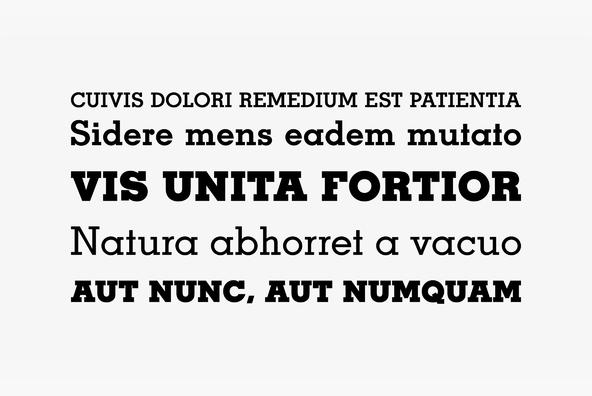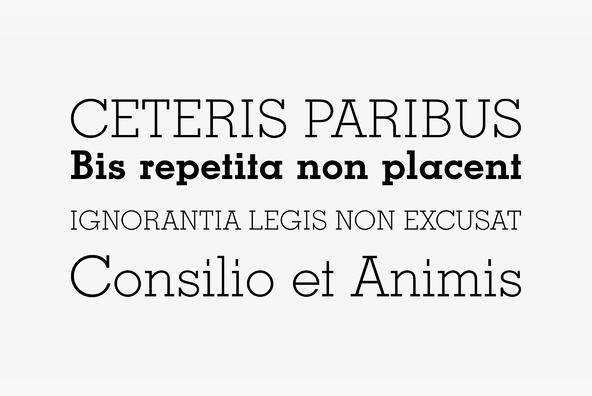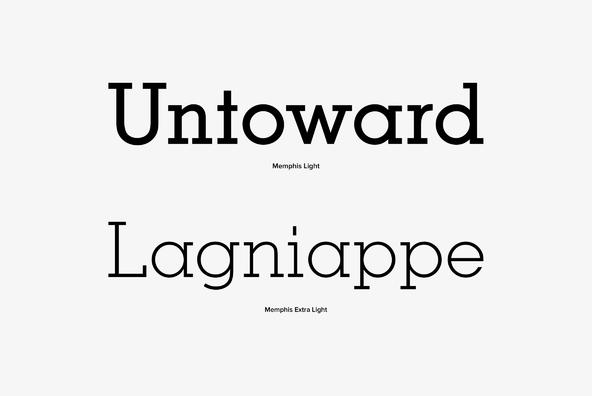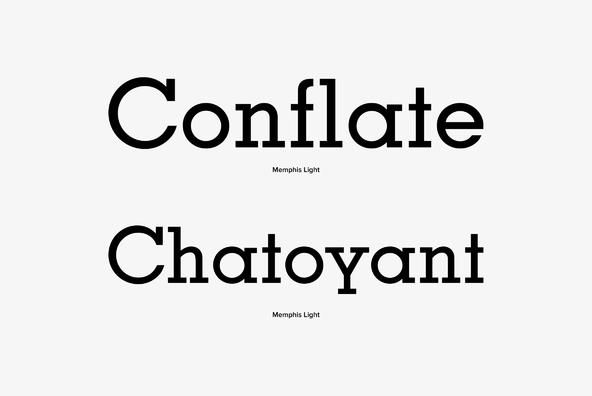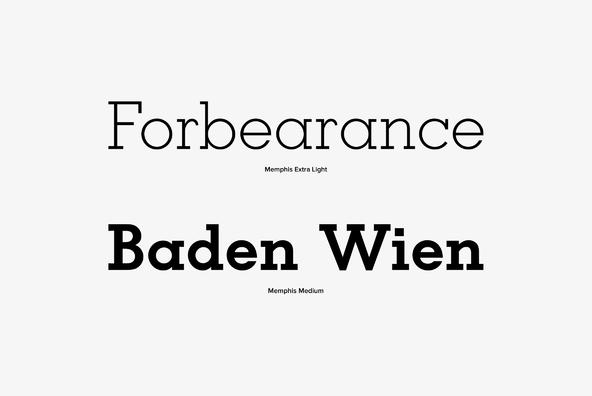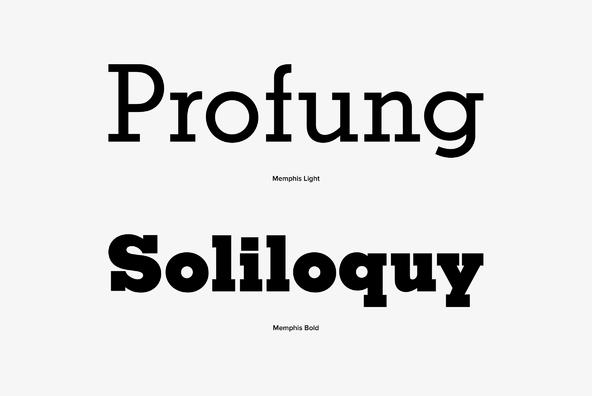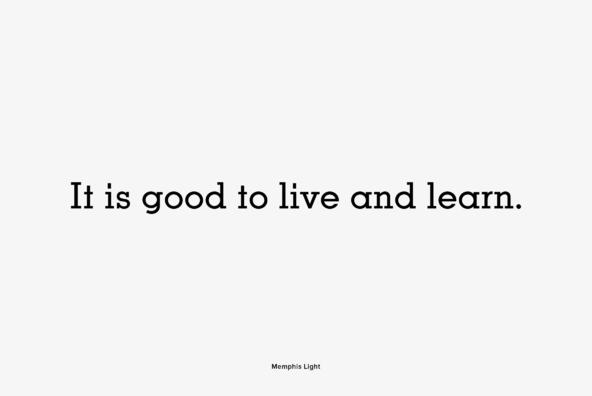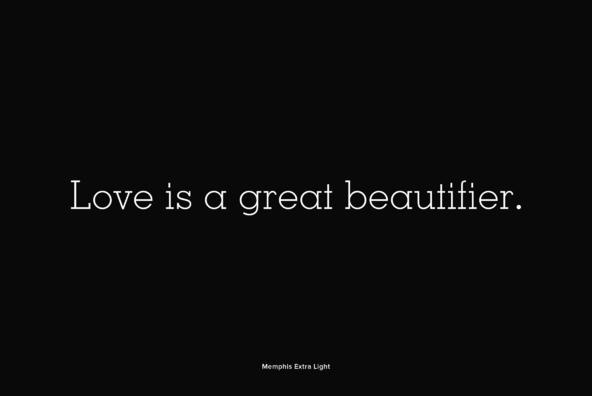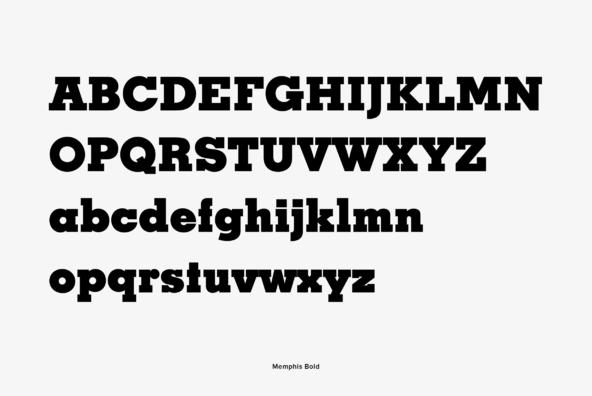
Memphis
Memphis is a modern and fashionable slab-serif originally designed by Rudolf Wolf, brought to us by the german type foundry URW. Contains a simple but powerful family set with options from extra-light to bold. Memphis works great in an a range of design projects and many different mediums.